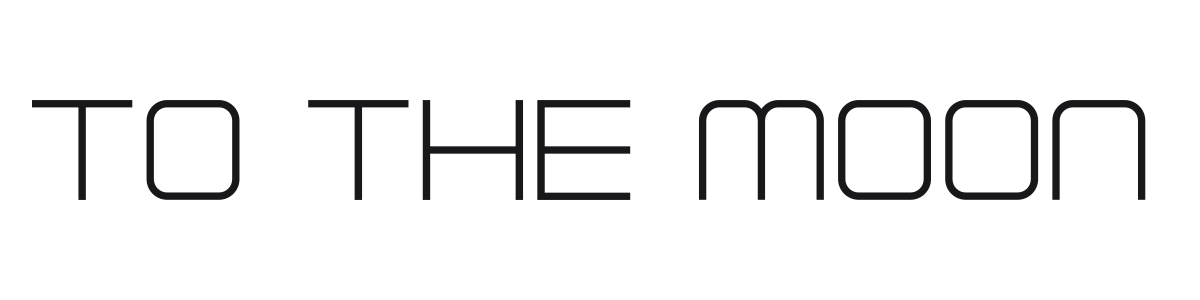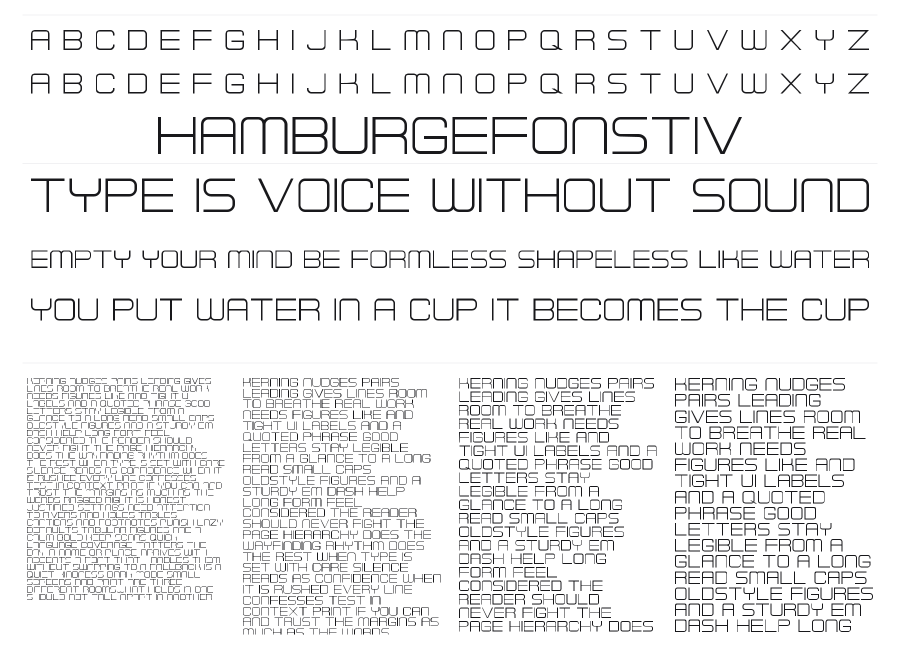
To The Moon
by Ryan Malaschak
To The Moon is a thin geometric sans with wide proportions, softly rounded terminals, and an almost weightless stroke. Its open spacing and monoweight construction give it a distinctly futuristic, space-age quality. Best used at large sizes where its fine lines and generous tracking can breathe.